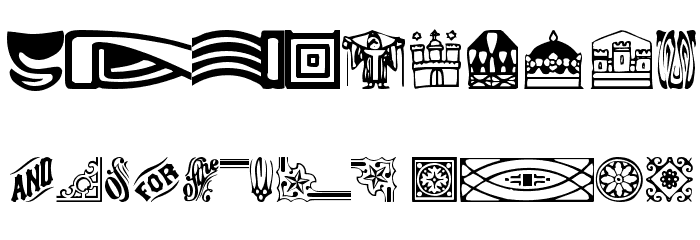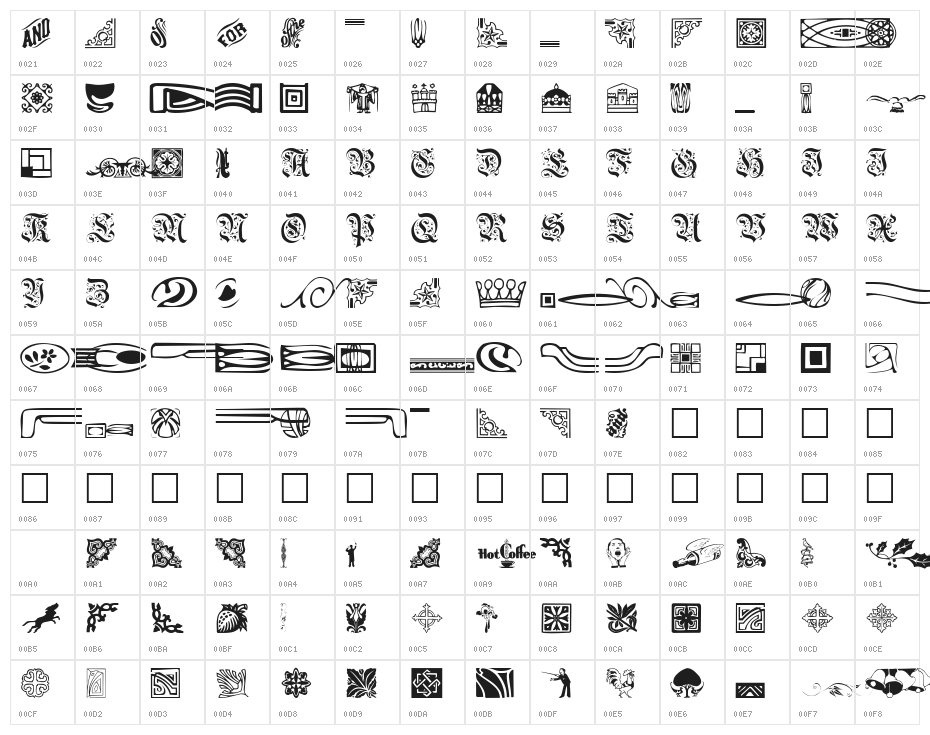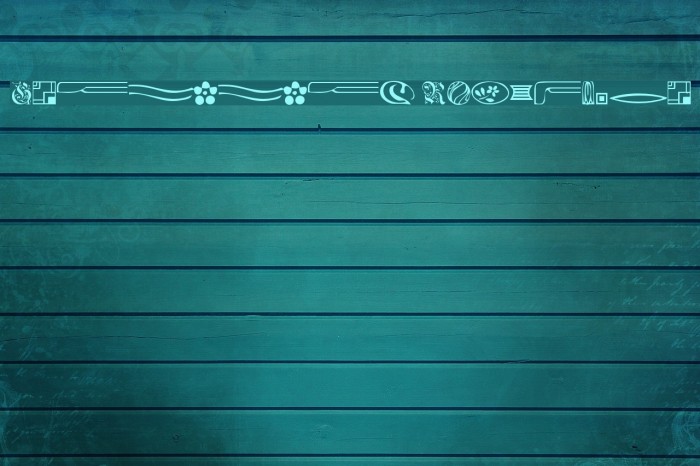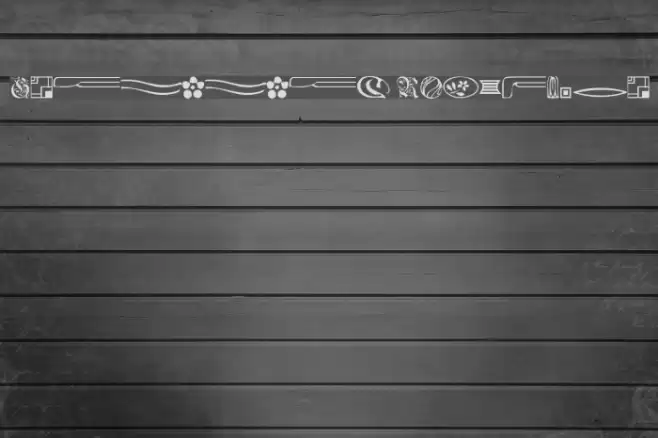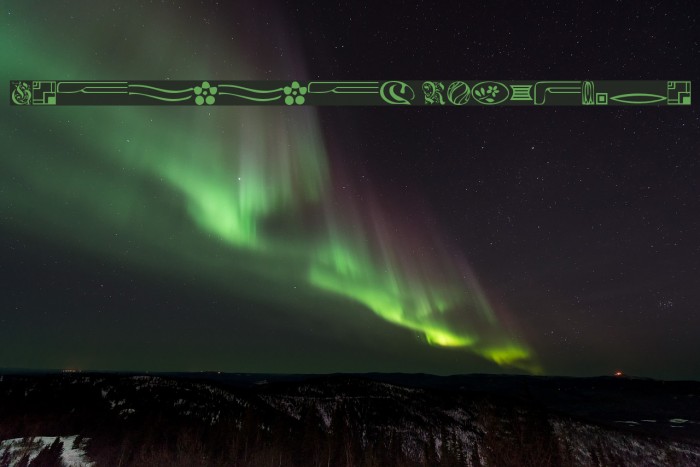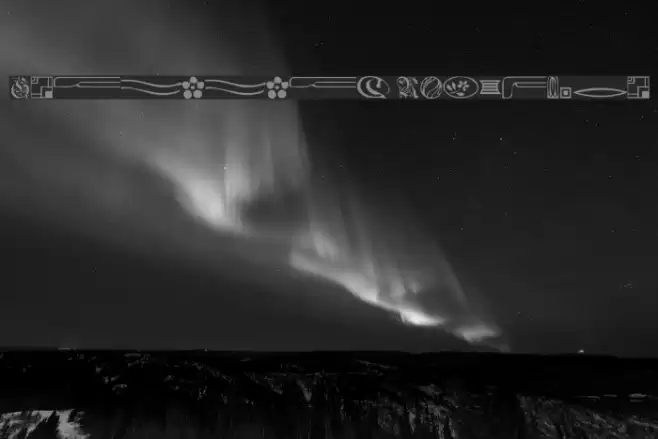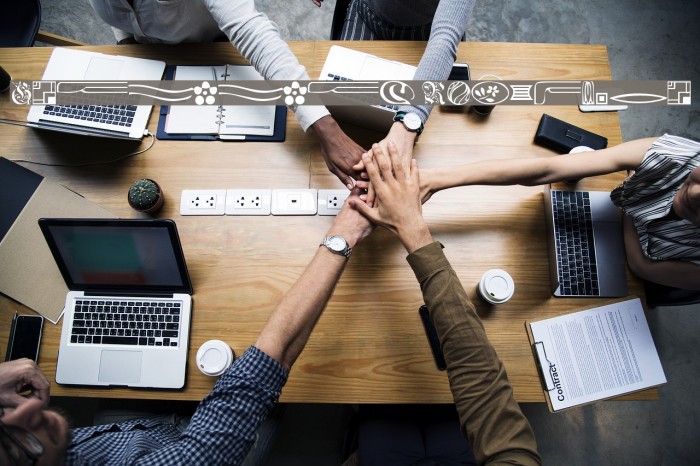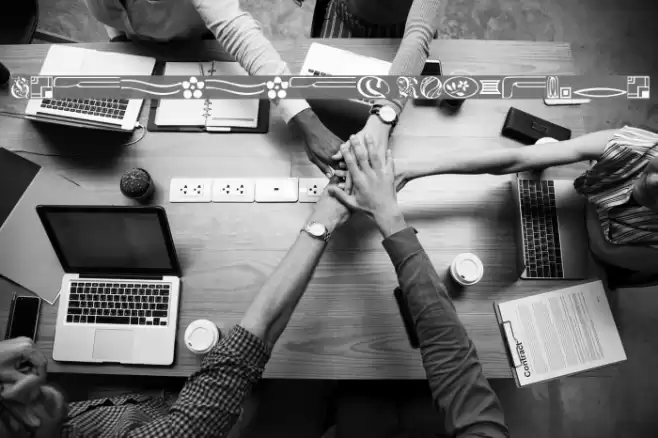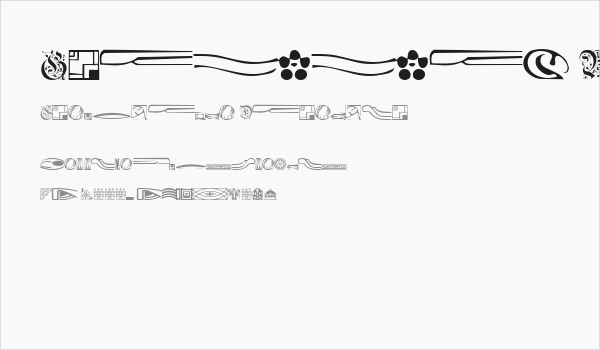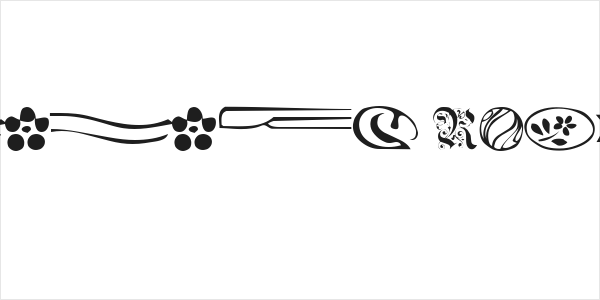
Griffin Regular Font
Griffin Regular Description
This font is a highly decorative and ornate typeface, featuring intricate patterns and embellishments within each letterform. The design is reminiscent of vintage or medieval styles, with elaborate swirls and flourishes that give it a regal and artistic appearance. Each character is uniquely crafted, making it suitable for projects that require a touch of elegance and sophistication. The font includes a variety of decorative elements and borders, enhancing its versatility for creative designs.
Overall StyleVintage
Use CaseLogos, Headlines, Decorative elements
Proposed ProjectsIdeal for wedding invitations, historical-themed posters, luxury branding, and decorative certificates.